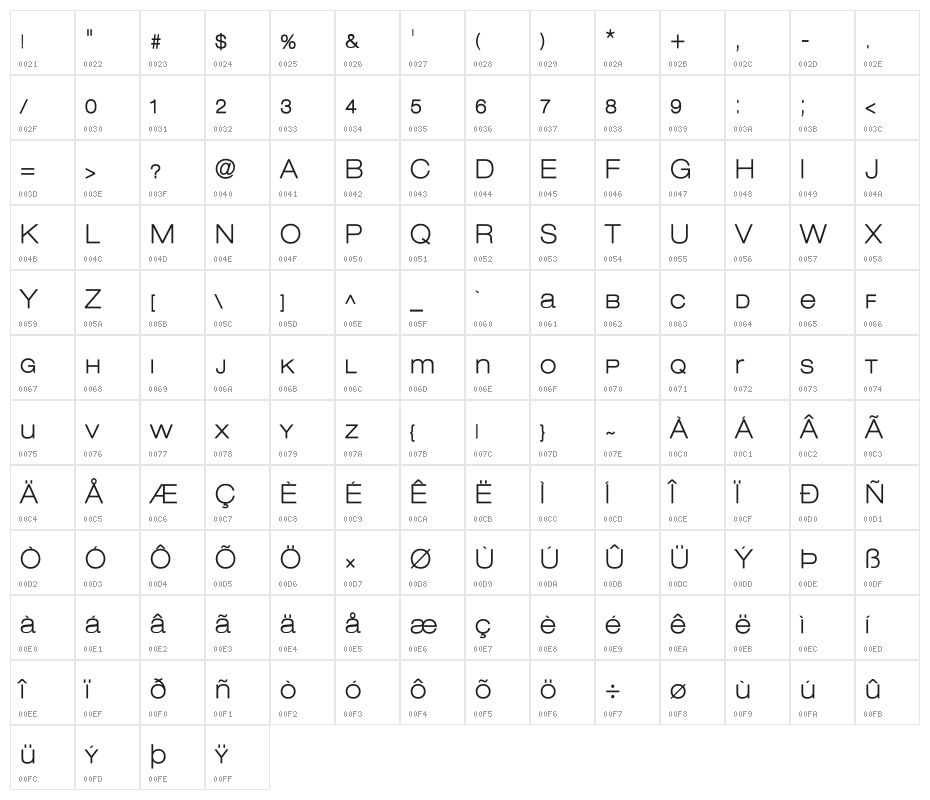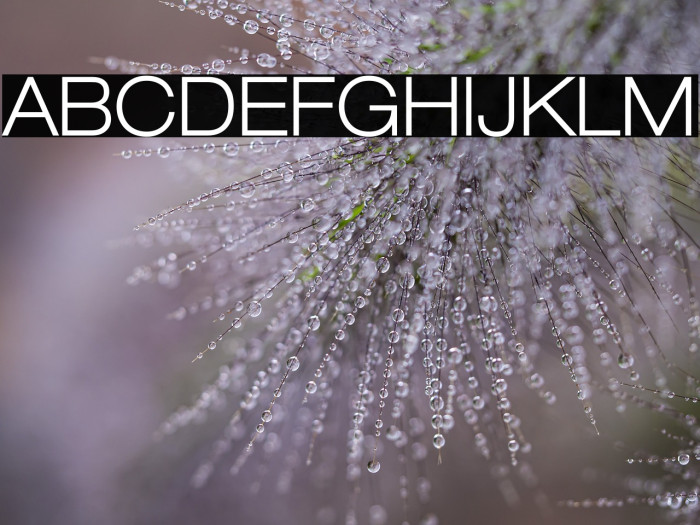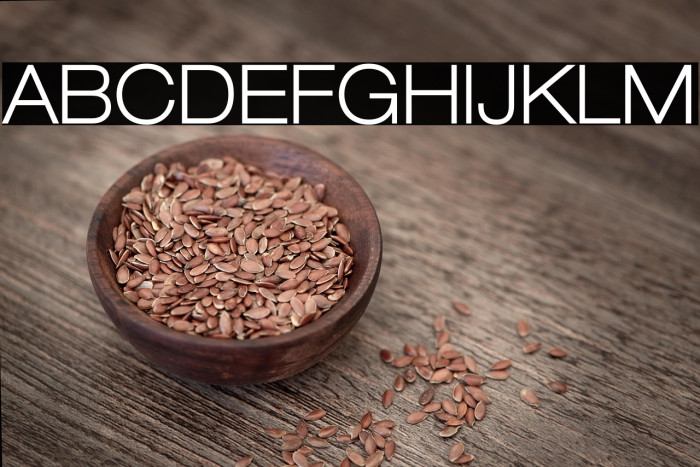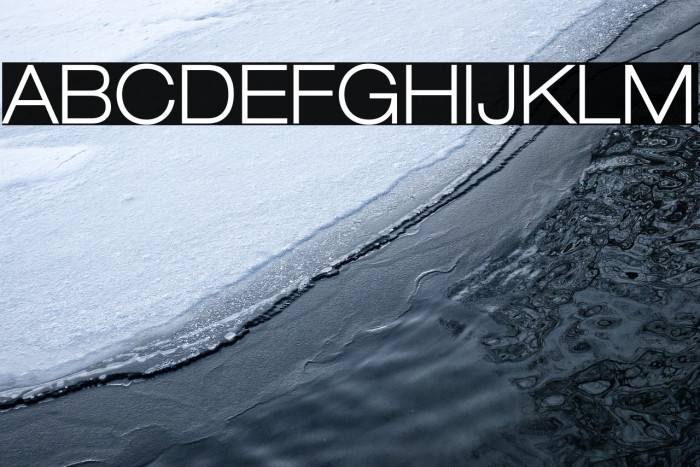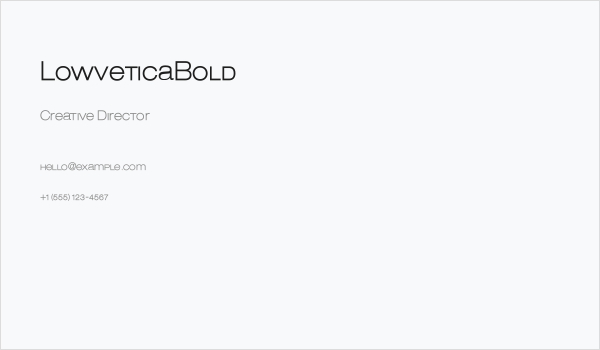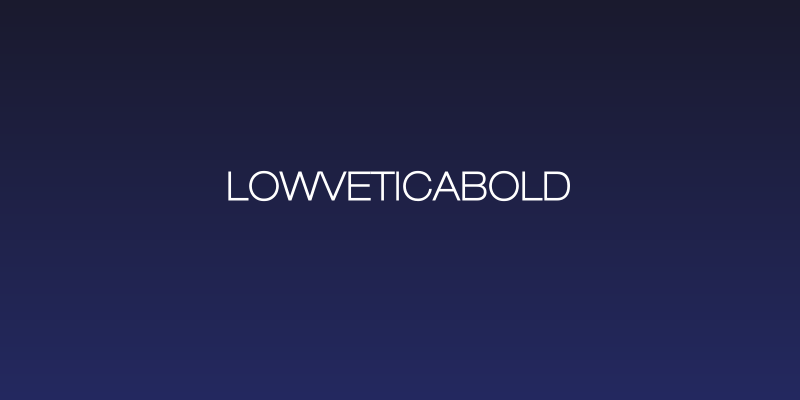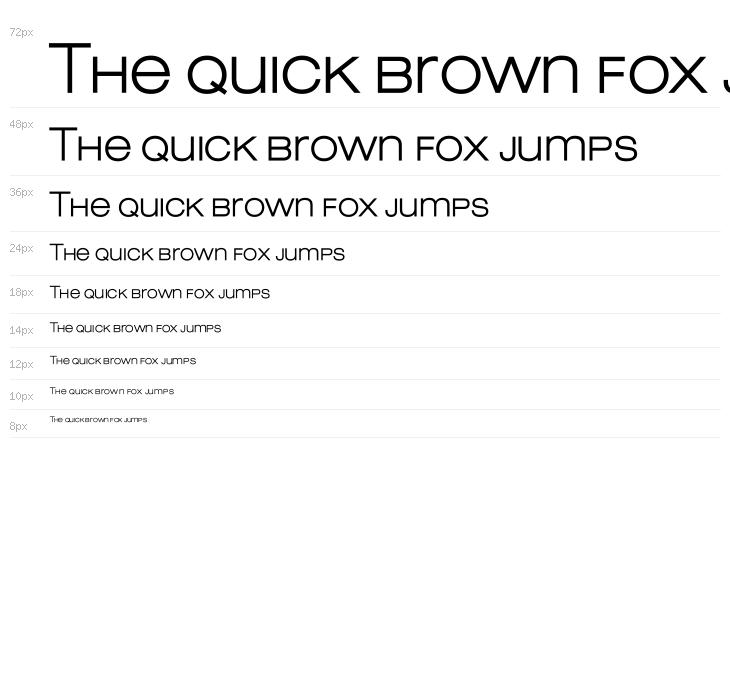
LowveticaBold Font
LowveticaBold Description
This font features a clean and modern sans-serif design with uniform stroke widths, giving it a sleek and contemporary appearance. The characters are well-proportioned, with a geometric structure that enhances readability. The uppercase and lowercase letters maintain a consistent style, while the numerals are clear and easy to distinguish. Special characters are designed to complement the overall aesthetic, making this font versatile for various applications. Its simplicity and clarity make it ideal for digital and print media.
| Proposed Projects | Ideal for branding, web design, advertising, and editorial layouts. |